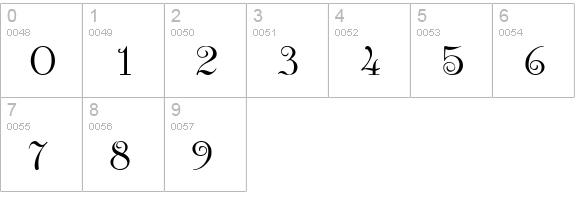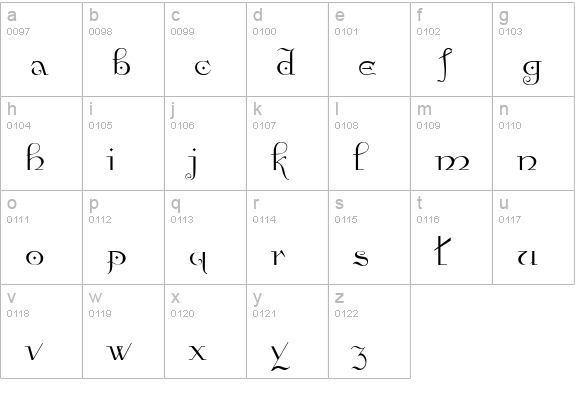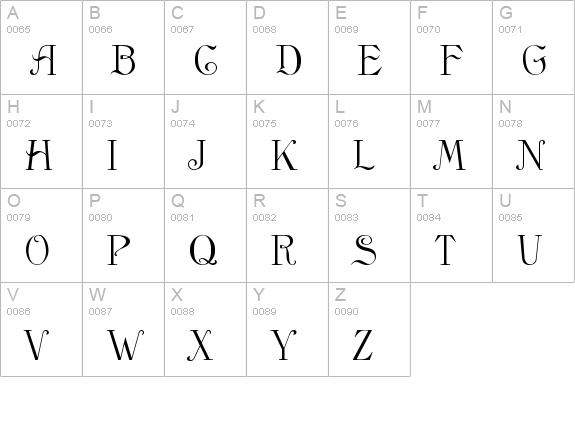
A780-Deco-Regular Font Details
A780-Deco-Regular is the standard, neutral variant in the A780 typeface family \xE2\x80\x94 well suited to general body text, paragraphs, and standard typographic work.
A780-Deco-Regular is a stylish and modern font that exudes elegance and sophistication. With its sleek lines and geometric shapes, this font is perfect for creating eye-catching designs and projects. The versatility of A780-Deco-Regular makes it suitable for a wide range of applications, from branding to editorial design. The best part? A780-Deco-Regular is freely available to download at FontsMarket.com. Now you can add a touch of class to your projects without breaking the bank. Don't miss out on this fantastic opportunity to enhance your designs with the timeless appeal of A780-Deco-Regular font. Download it today and let your creativity shine!